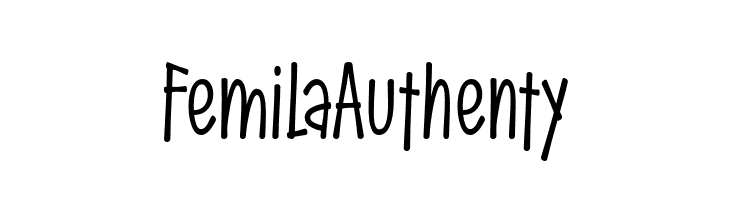
A playful, handwritten font with flowing, cursive-like strokes and a modern aesthetic.
A whimsical and decorative font with a playful, hand-drawn style.
Bold, graffiti-inspired display font with rough, expressive letterforms.
A playful, hand-drawn font with bold, geometric uppercase and rounded lowercase letters.
A bold, geometric font with dynamic angles and wide curves.
A bold, decorative font with ornate, gothic embellishments.
A bold, distressed font with a grunge texture for an edgy, rebellious look.
A bold, distressed font with a rugged, grunge aesthetic.
A bold, gothic-inspired font with sharp, angular lines and a modern twist.
A bold, modern blackletter-inspired font with sharp, angular strokes.
A bold, graffiti-inspired font with sharp, angular lines and dynamic flow.
A bold, hand-drawn font with a playful and textured appearance.
A bold, playful font with a hand-drawn, distressed look and three-dimensional effects.
A modern, geometric sans-serif font with uniform stroke widths.
A sleek, modern italic font with clean lines and smooth curves.
A bold, hand-painted style font with dynamic, brush-like strokes.
A modern, italic font with layered lines creating a dynamic, textured look.
A bold, multi-line font with a modern, geometric style.
A playful handwritten font with a casual and friendly style.
A bold, flame-inspired font with a dynamic and energetic style.
A bold, modern font with geometric and sleek design elements.
A bold, geometric font with a futuristic, industrial style.
A bold, italicized font with sharp, angular lines and a futuristic style.
A dynamic, italicized font with a sleek, modern style.
A bold, handwritten-style font with thick, expressive strokes.
A bold, distressed font with a vintage, hand-printed look.